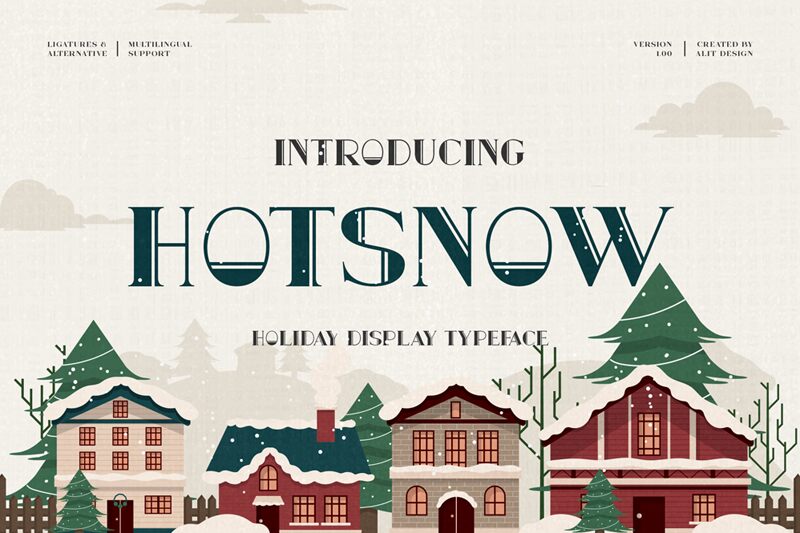
Hotsnow, the retro-inspired display font by Alit Suarnegara, is the perfect choice for projects that require a bold and eye-catching design. With its semi-wide width, Hotsnow is versatile enough to be used in a variety of settings, from vintage-themed logos to retro-style posters and flyers. The thick lines and sharp angles of this bold font make it ideal for creating a sense of nostalgia in any design project. Whether you're creating a brand identity or designing promotional materials, Hotsnow is sure to add a touch of retro flair that will set your project apart from the rest.